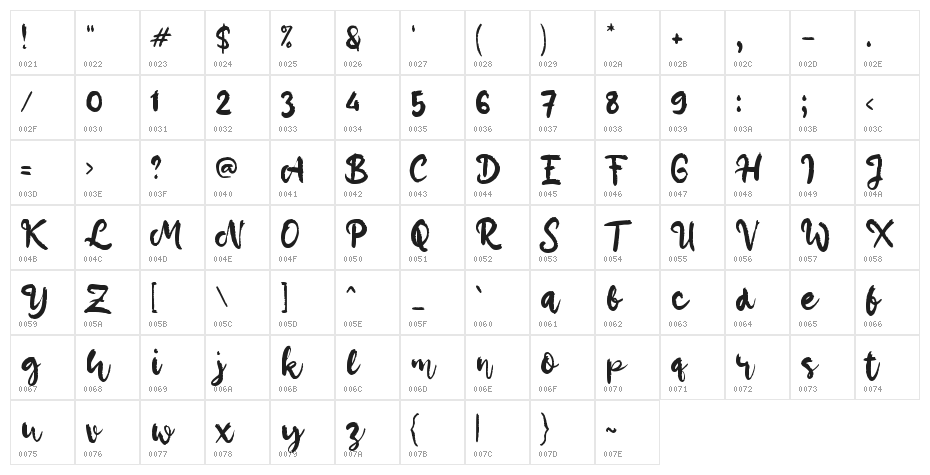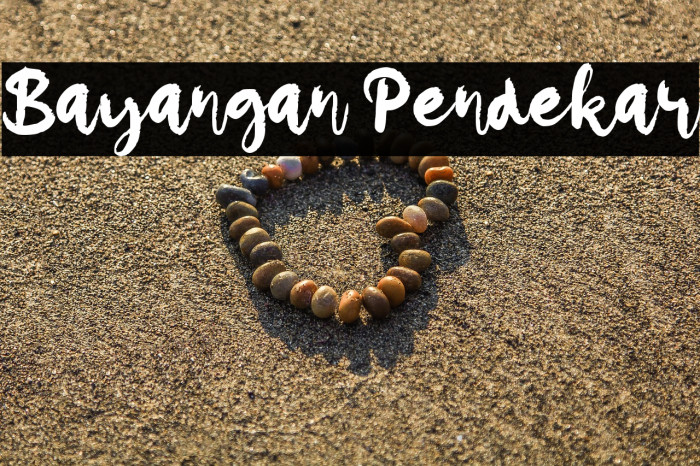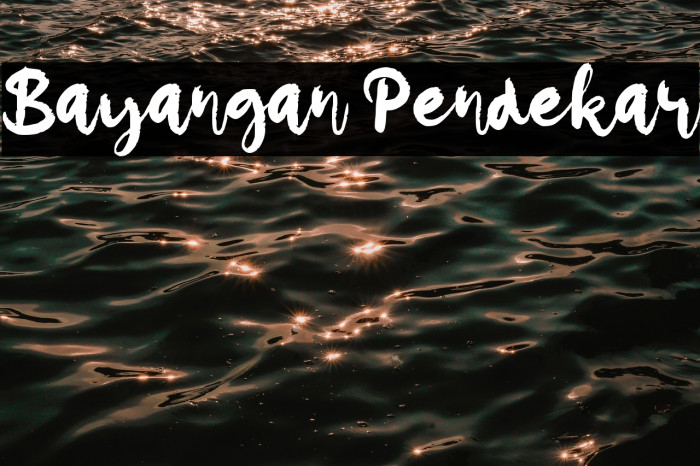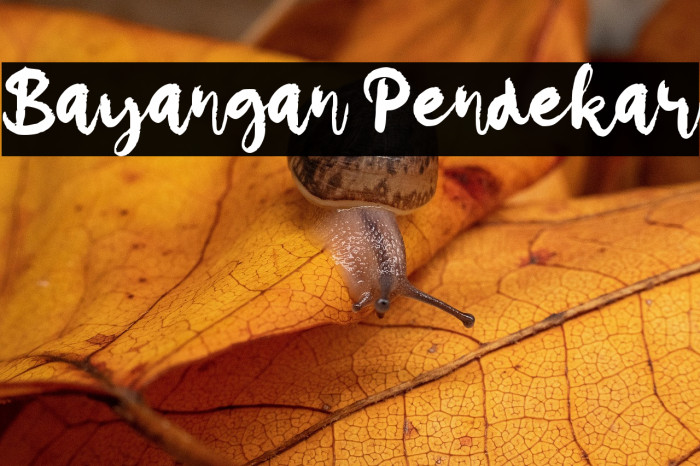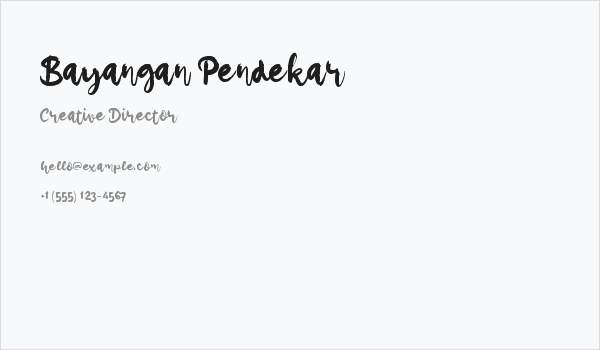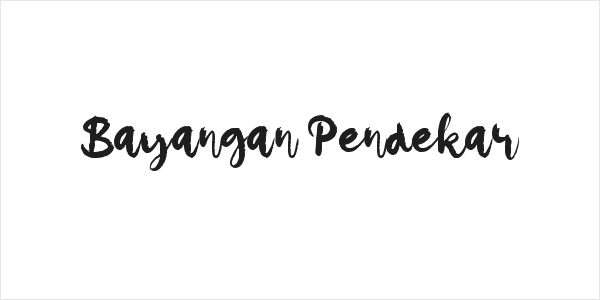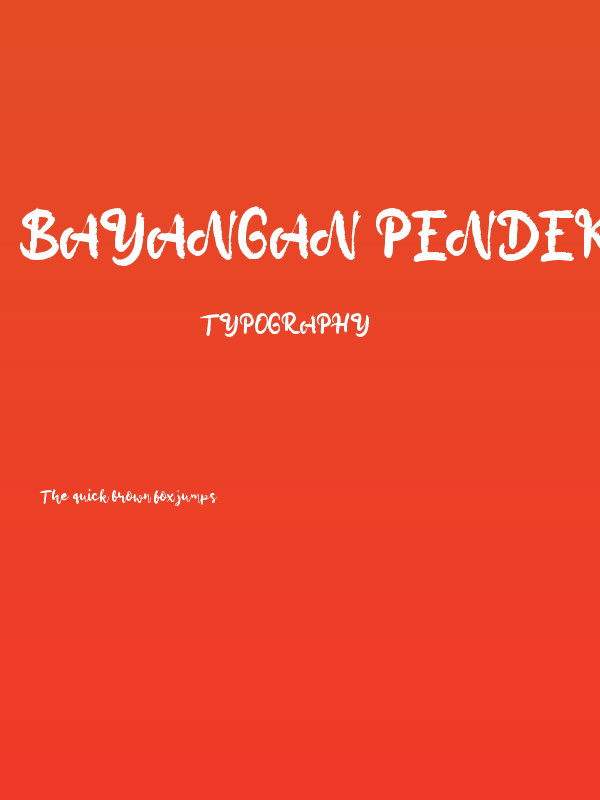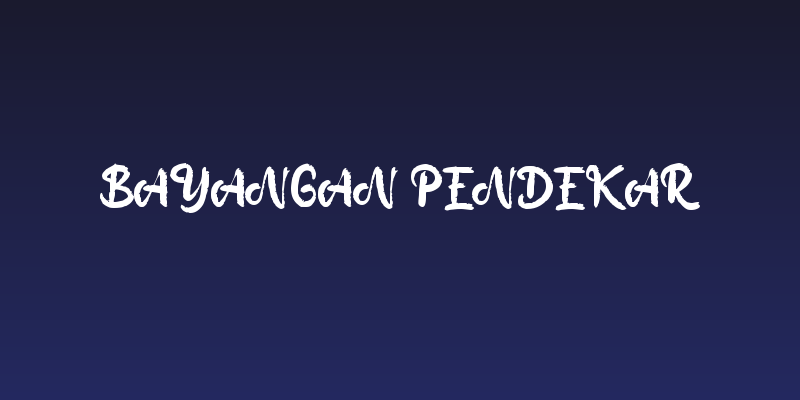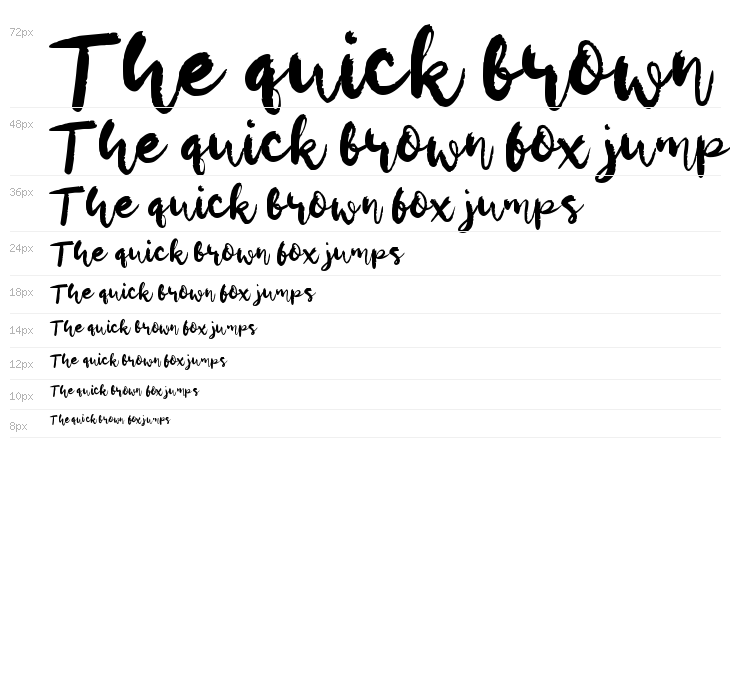
Bayangan Pendekar Font
Bayangan Pendekar Description
This font features a bold, expressive script style with a hand-drawn appearance. The uppercase letters are dynamic and fluid, while the lowercase letters maintain a consistent flow, enhancing readability. The numbers are robust and match the overall aesthetic, providing a cohesive look. Special characters are well-integrated, adding versatility for various design needs. The strokes are thick, giving the font a strong presence, and the slight irregularities in the letterforms add a personal, artistic touch.